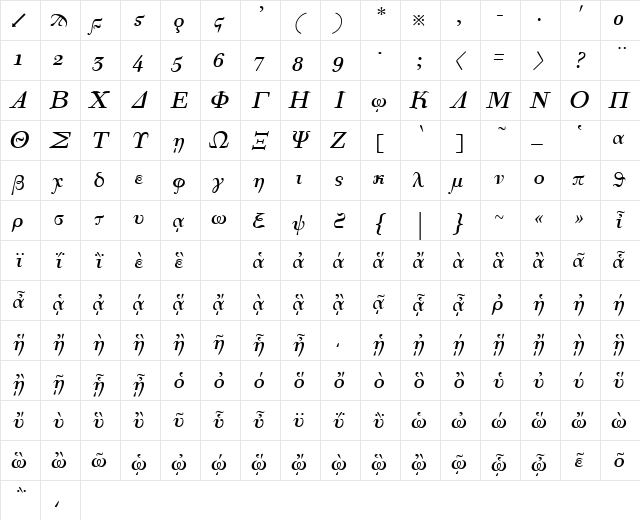
Korinthus is a composed and adaptable typeface that performs quietly and consistently across a wide range of design contexts. The slanted form adds forward momentum and visual energy.